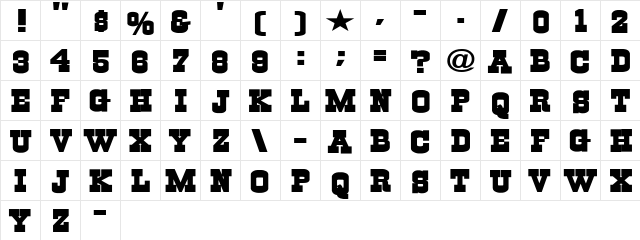
Cowboys Solid
Design Context for Cowboys Typeface
Cowboys taps into classic Western woodtype traditions — bold, characterful, and impossible to ignore.
A natural fit for craft spirits, ranch branding, rodeo events, and Americana-inspired design work.
Font Pairing: Combine Cowboys with a simple slab or neutral sans — period-accurate companions reinforce the vintage feel without competing for attention.
Pro Tip: Use Cowboys for short, impactful bursts of text — it shines in poster headlines and product names rather than extended copy.